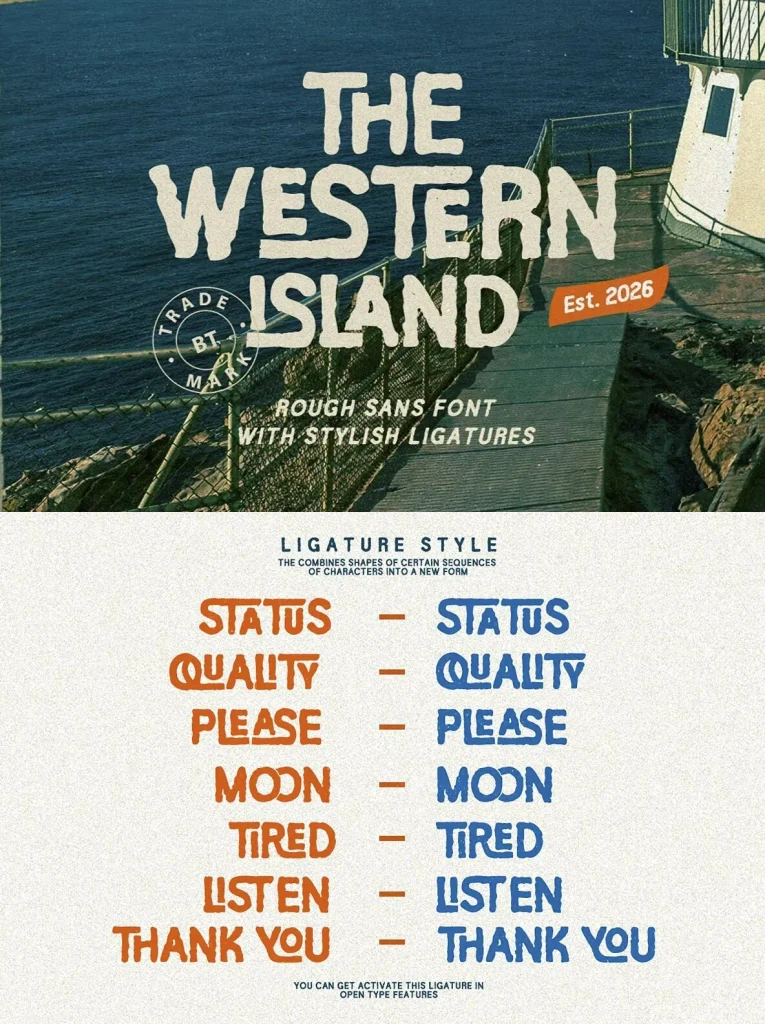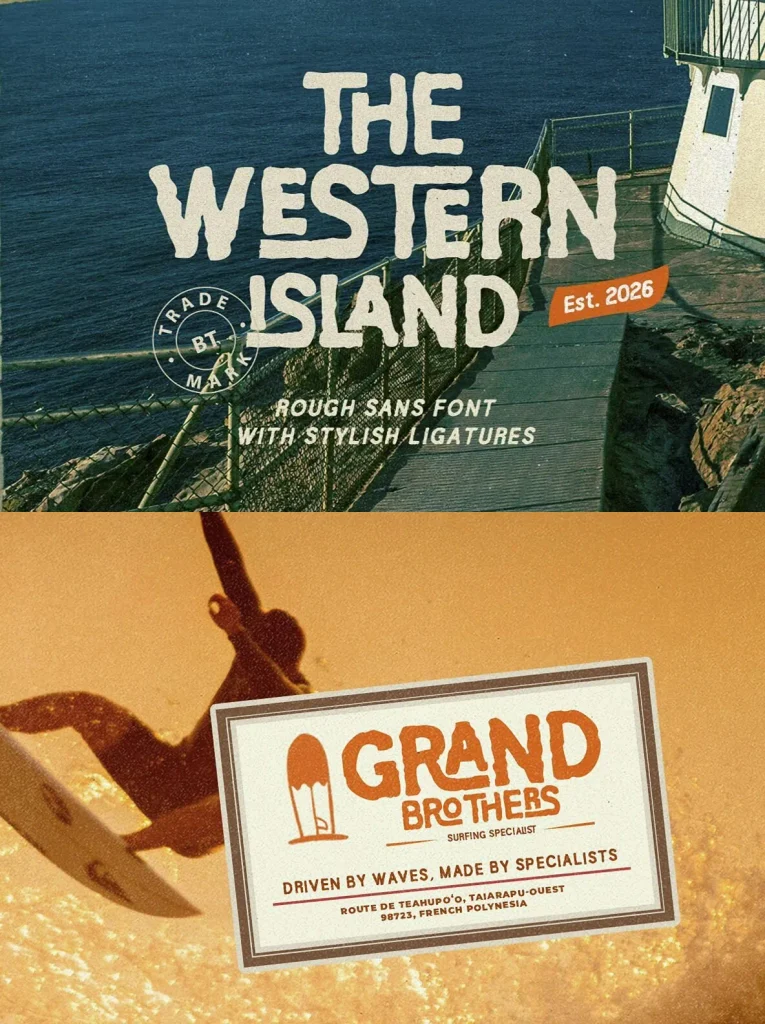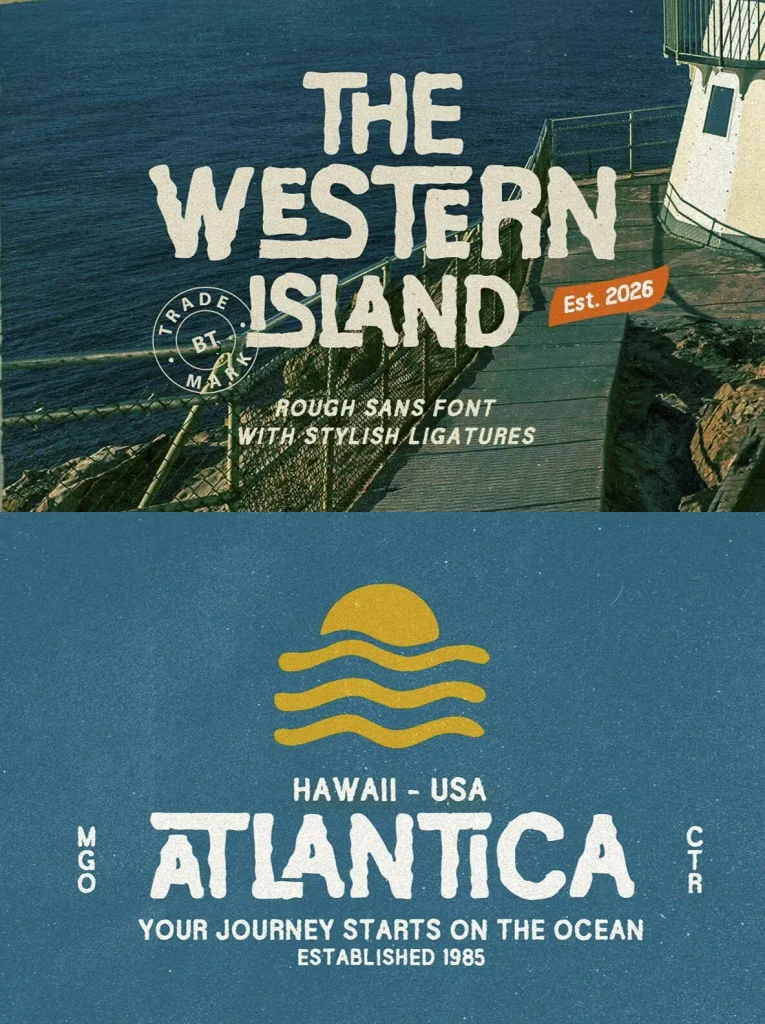
The Western Island — Rough Handmade Character
The Western Island is a rough, handcrafted sans typeface with a generous set of ligatures. Its handmade texture and irregular character give logos, posters, branding, and display-focused projects a strong, tactile look.
The distinctive ligature shapes help typography feel more personal and memorable, especially when a design calls for a raw, hand-drawn presence. The Western Island also supports multiple languages, making it a practical choice for rough, handmade visual identities across a wider range of projects.